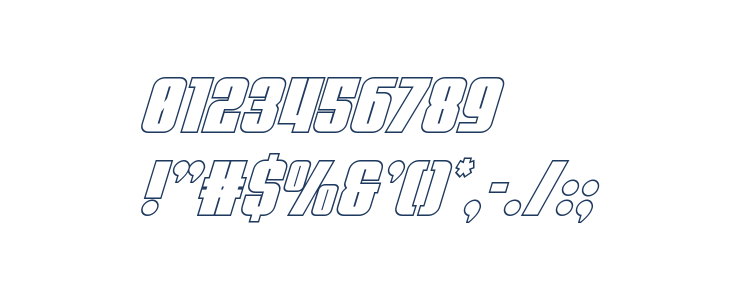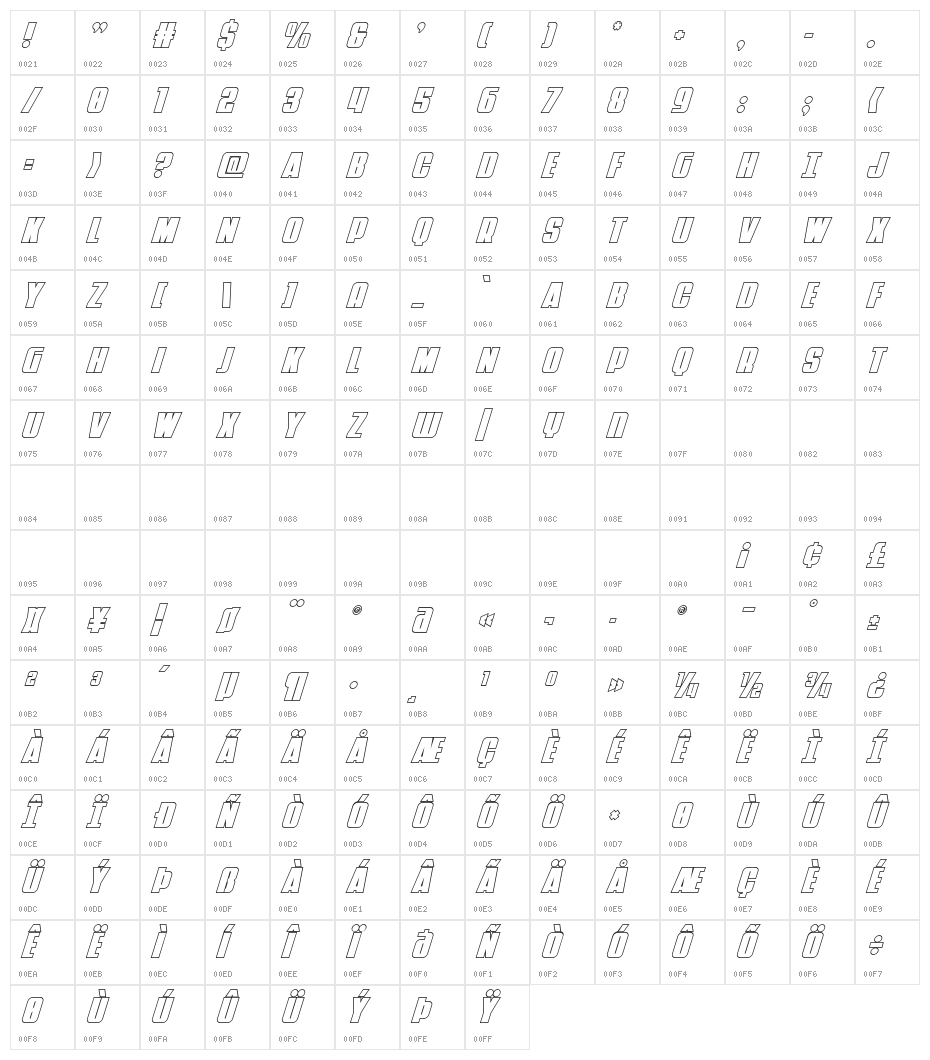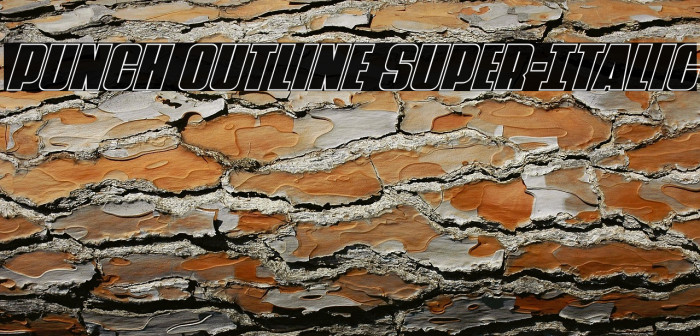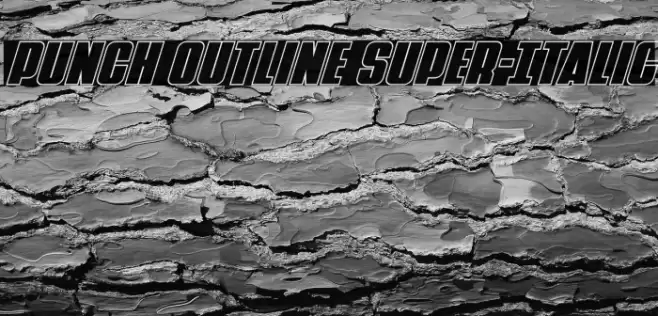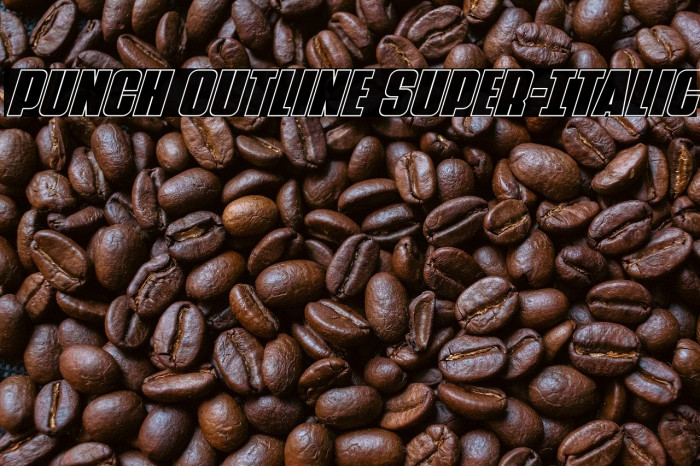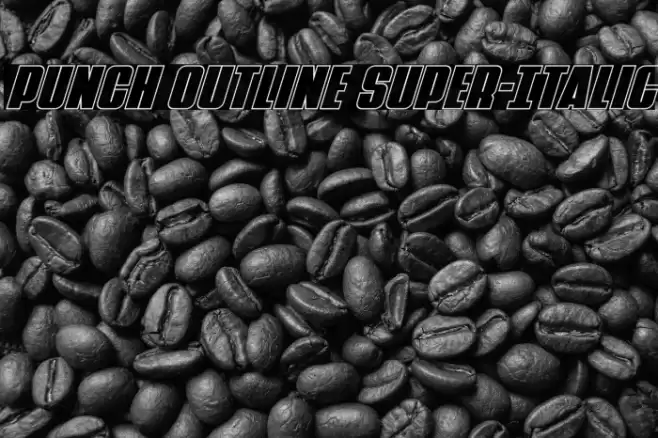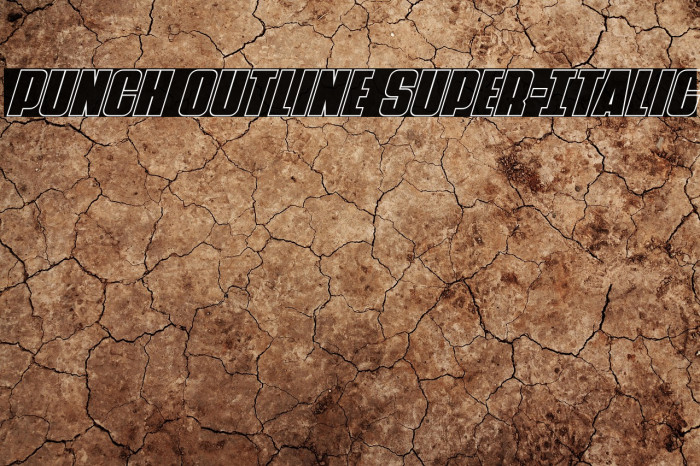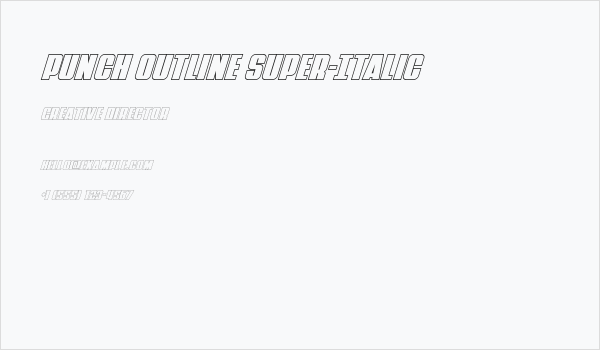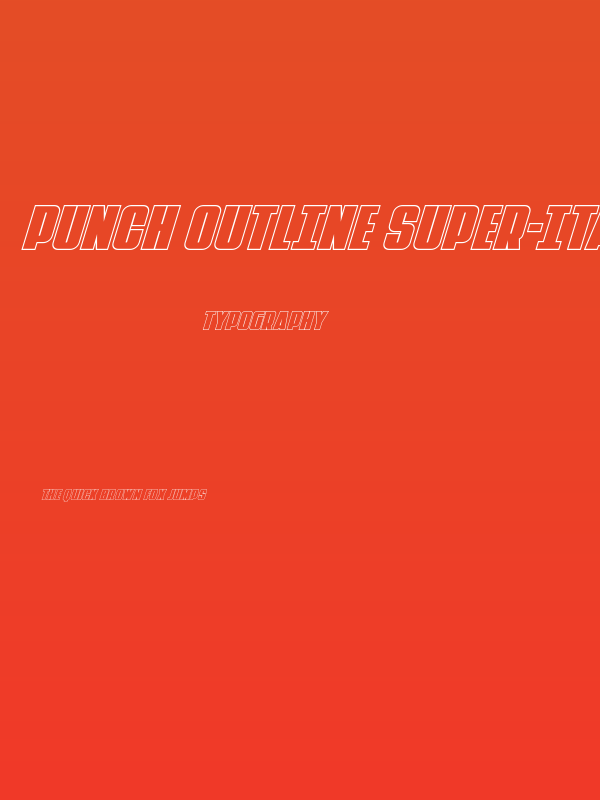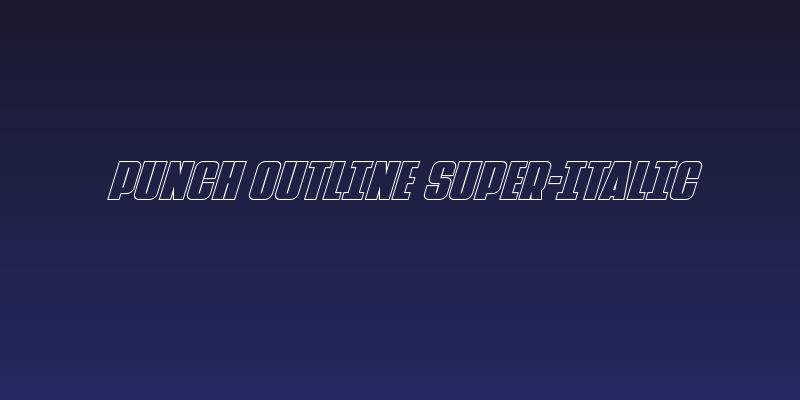
Punch Outline Super-Italic Font
Punch Outline Super-Italic Description
This font features a bold, italicized style with a distinct outline that gives it a striking, impactful appearance. The characters are designed with a forward slant, enhancing the dynamic and energetic feel. The outline effect adds a layer of depth, making the letters stand out prominently. The uppercase and lowercase letters maintain a consistent style, with a strong geometric influence evident in the angular shapes and clean lines. Numbers and special characters follow the same design principles, ensuring uniformity across all glyphs. This font is ideal for projects that require a bold statement, combining modern aesthetics with a touch of retro flair.